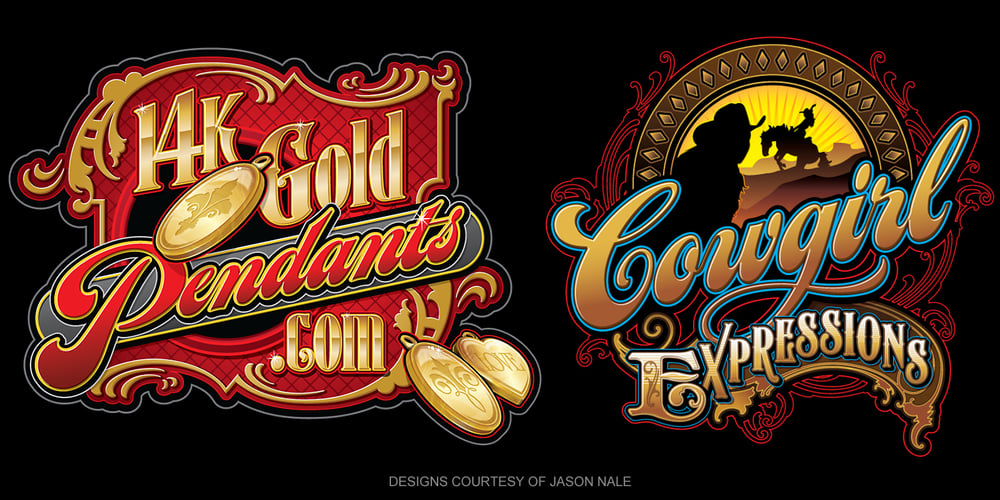
LHF Chicago Script
LHF Chicago Script font
LHF Chicago Script Font Family was designed by Charles Borges de Oliveira and published by Letterhead Fonts. LHF Chicago Script contains 1 styles and family package options. This Charles Borges’ script takes full advantage of the Open Type format with several automatic ligatures that occur as you type for a nicer fit. Plus, the manual stylistic alternates allow you to choose the letters you prefer. Alternates occur automatically as you type in supported programs when you have “Ligatures” or “Stylistic Alternates” turned on. If your program does not support automatic ligatures and substitutions, you may still access the alternates manually using the printable keyguide or using Character Map (Windows) or Font Book (Mac).